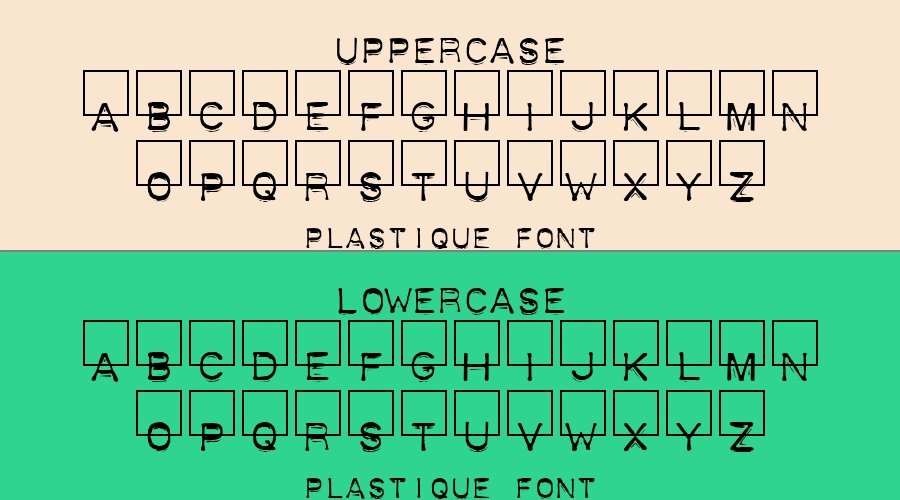
About Plastique Font
Designed with precision, Plastique Font merges precise joints with exceptional clarity in every character. This versatility makes it particularly effective for editorial design, where refinement and practical utility directly impact communication quality. Each letterform demonstrates meticulous craftsmanship.
Technical excellence shines through elements like hairline details and discretionary ligatures, enhancing typographic versatility. In artistic statements settings, Plastique Font proves its worth through superior small text clarity. The thoughtful execution of terminal style and cultural context ensures professional results.